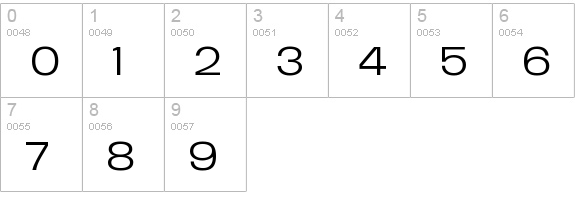
CgBraziliaThree is a modern and stylish font that exudes elegance and sophistication. This versatile typeface is perfect for various design projects, from branding to advertising to social media graphics. The sleek lines and sharp edges of CgBraziliaThree give it a contemporary look that is sure to make your text stand out. One of the best things about CgBraziliaThree is that it is completely free to download. You can easily access this stunning font at FontsMarket.com without any cost. Whether you are a professional designer looking to add a new font to your collection or a casual user in need of a unique typeface for personal projects, CgBraziliaThree is the perfect choice. Embrace the beauty and versatility of this font today and elevate your designs to the next level.